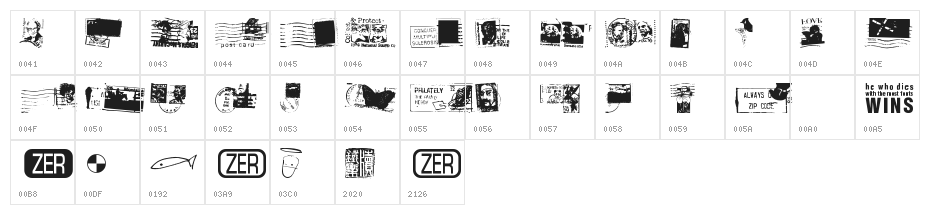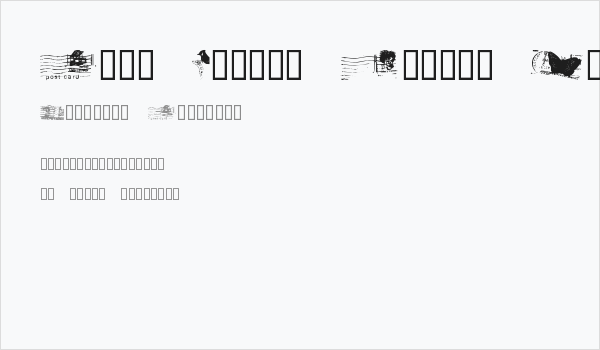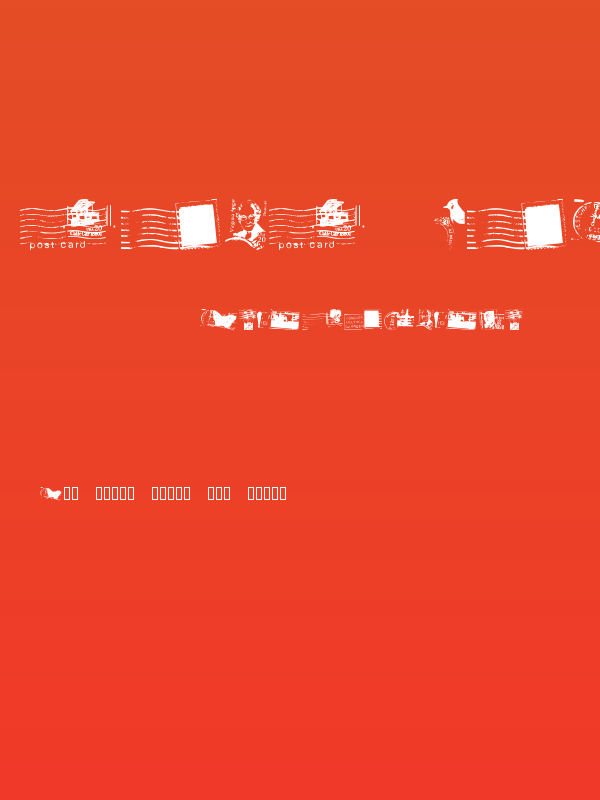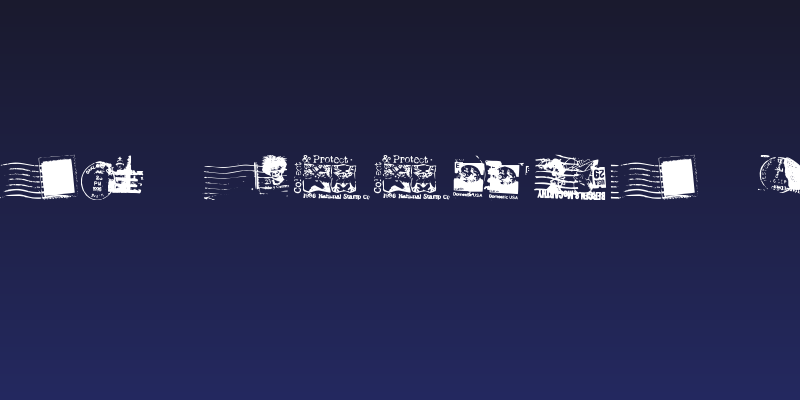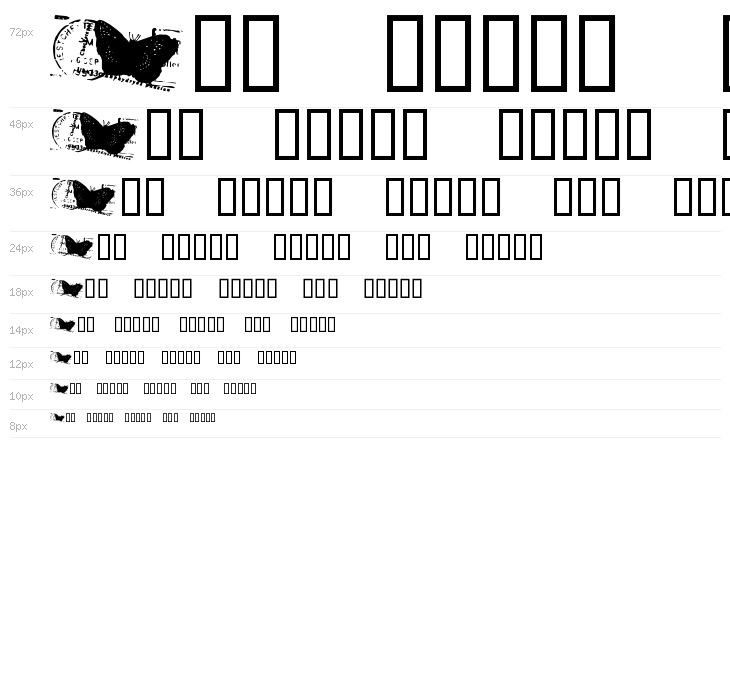
Dead Letter Office Thirty Two Font
Dead Letter Office Thirty Two Description
This image does not contain a valid font. It appears to be a collection of various images or stamps arranged in a sequence. The images are diverse, featuring different designs and possibly text, but they do not form a coherent typeface or font set. The overall composition suggests a collage or an artistic arrangement rather than a structured font design. The images are not uniform in style or theme, making it impossible to extract a consistent font description from them.
| Overall Style | Artistic, Collage |
| Use Case | Decorative art, Collage projects |
| Proposed Projects | This image could be used for artistic projects, collages, or as a decorative element in graphic design. |